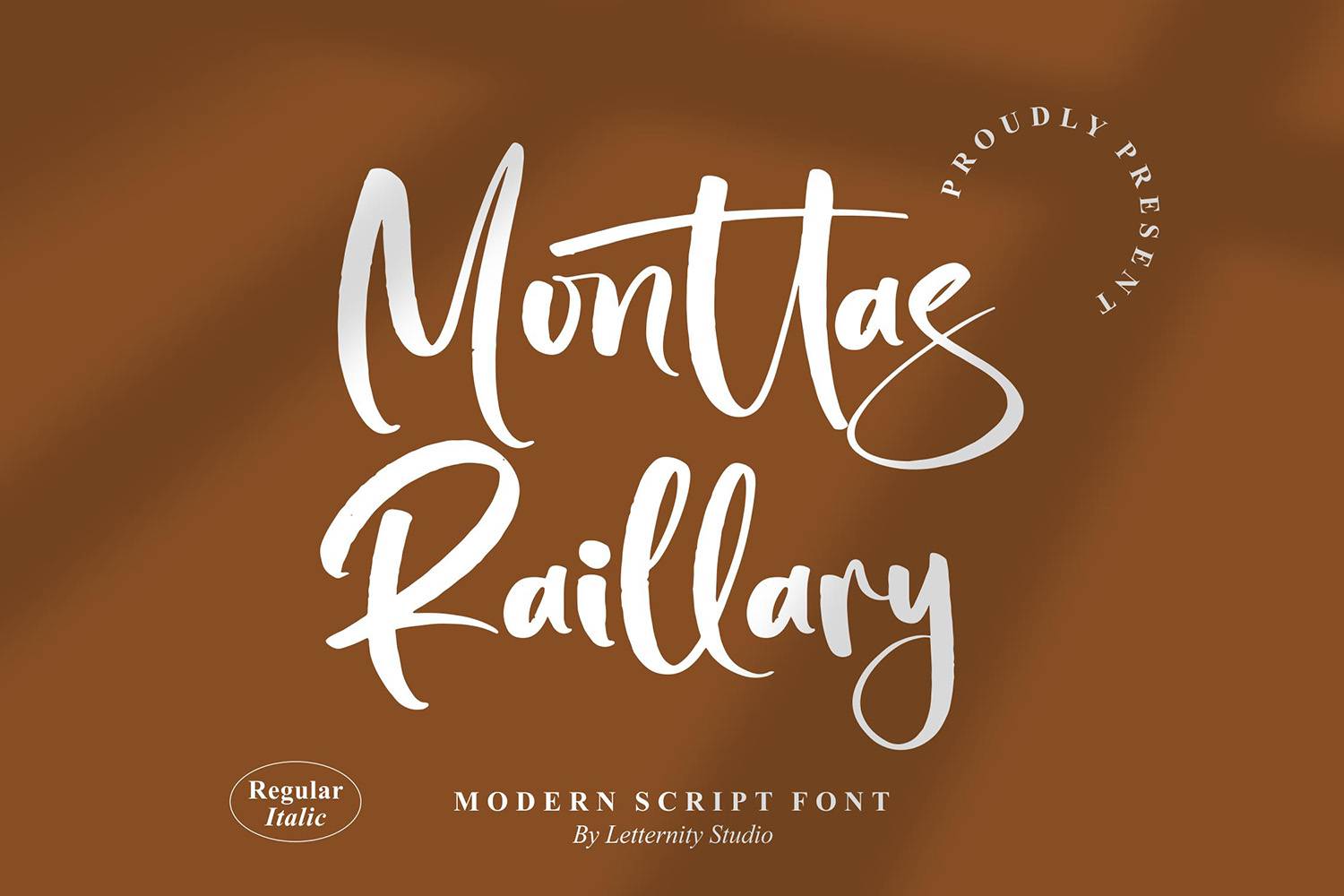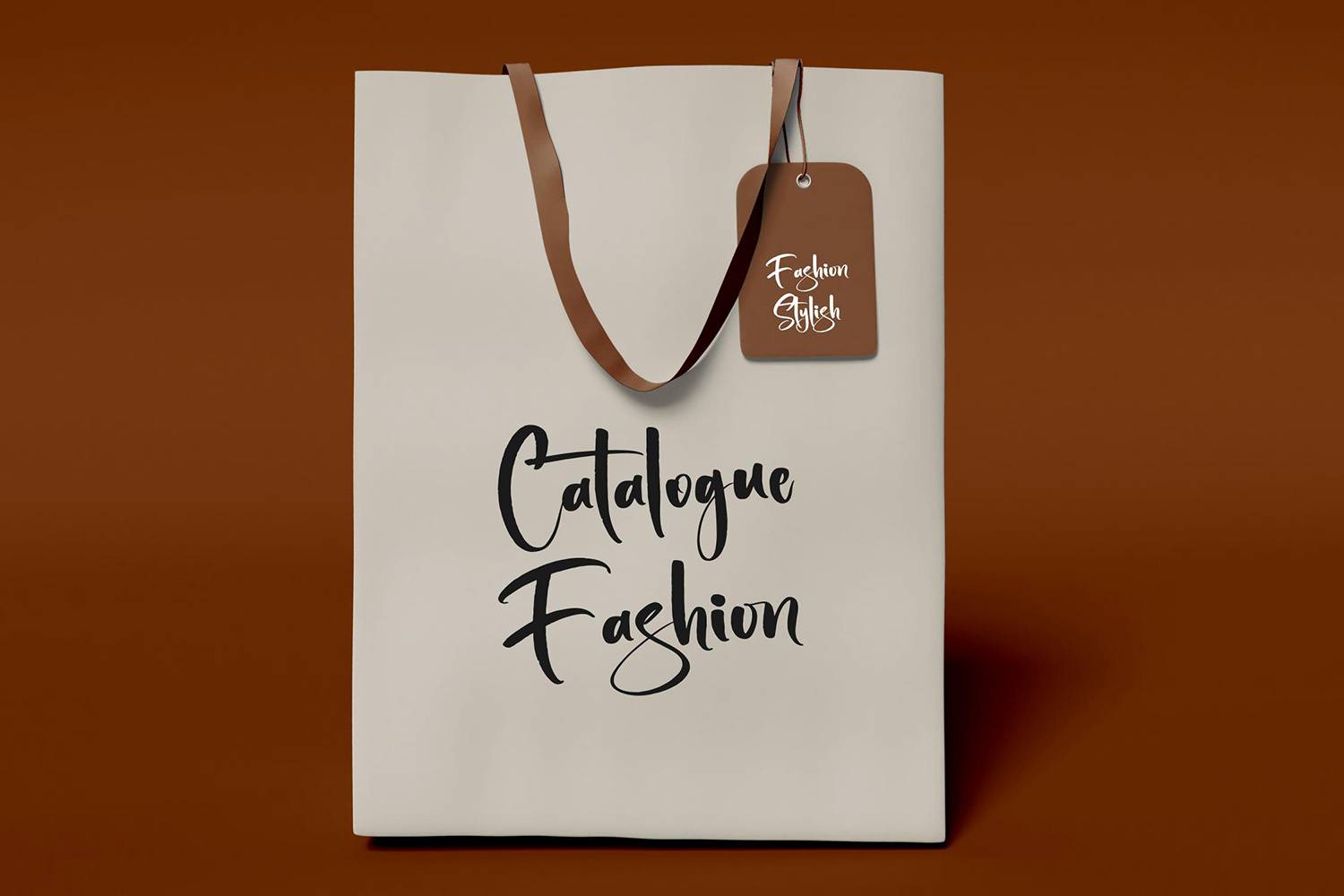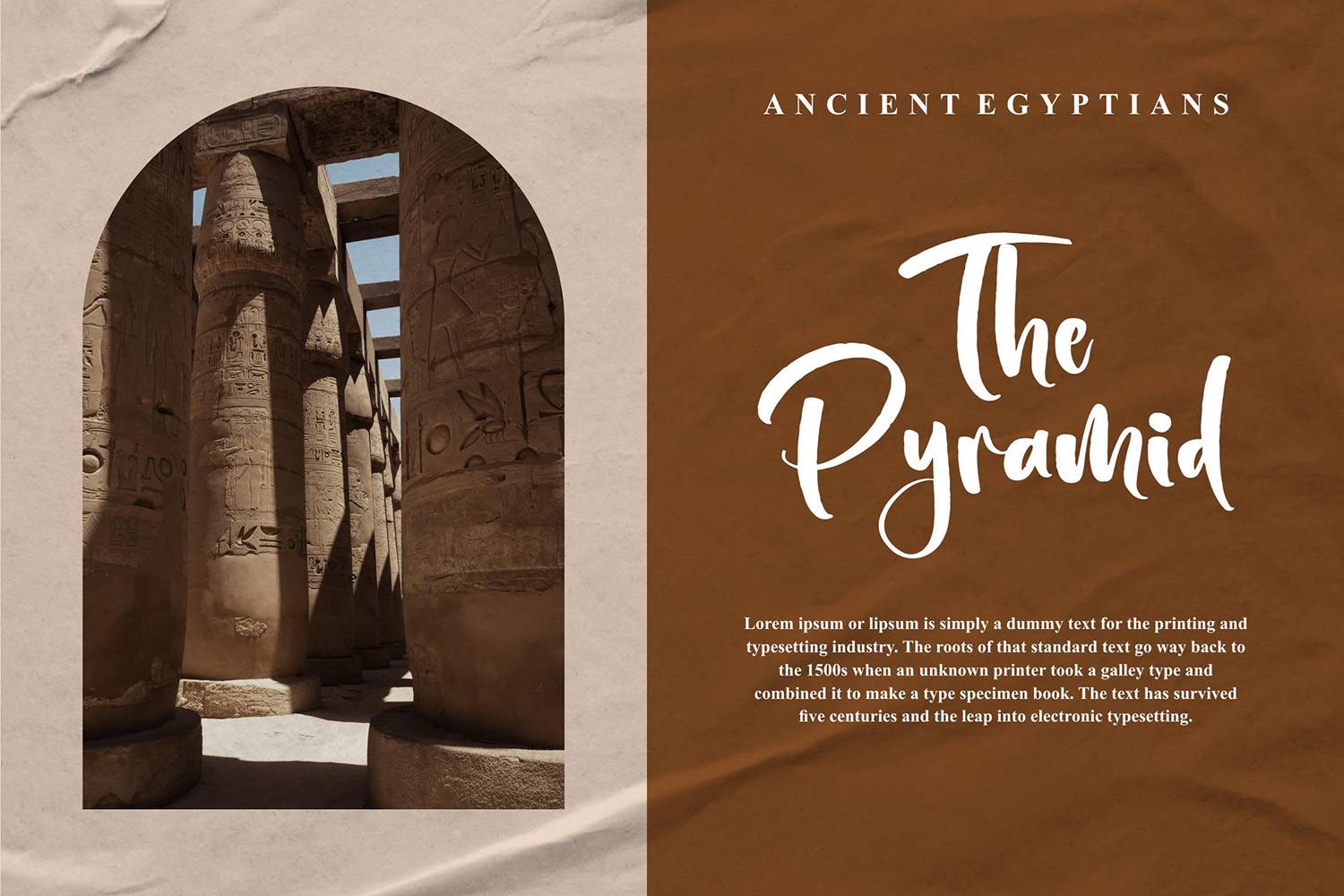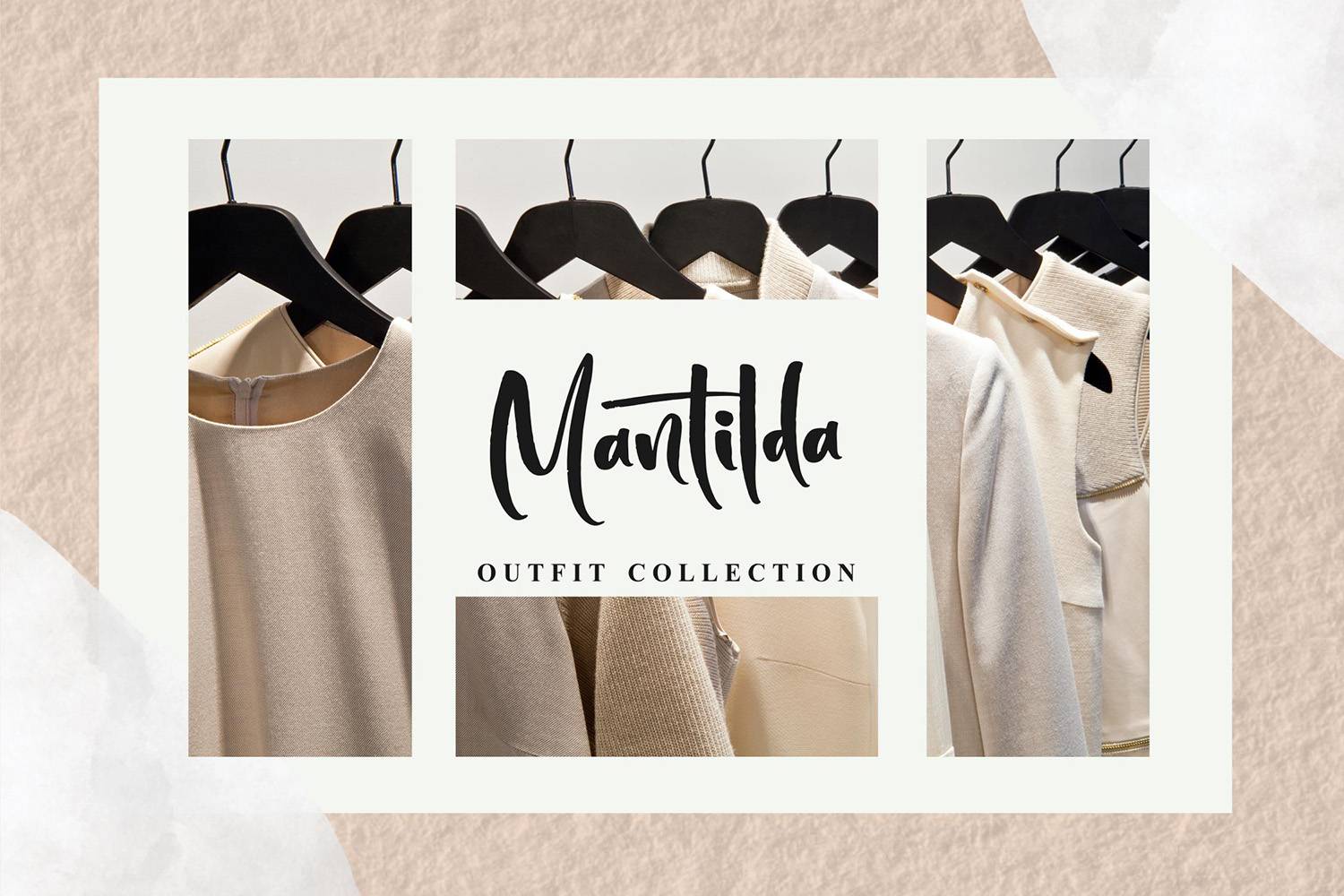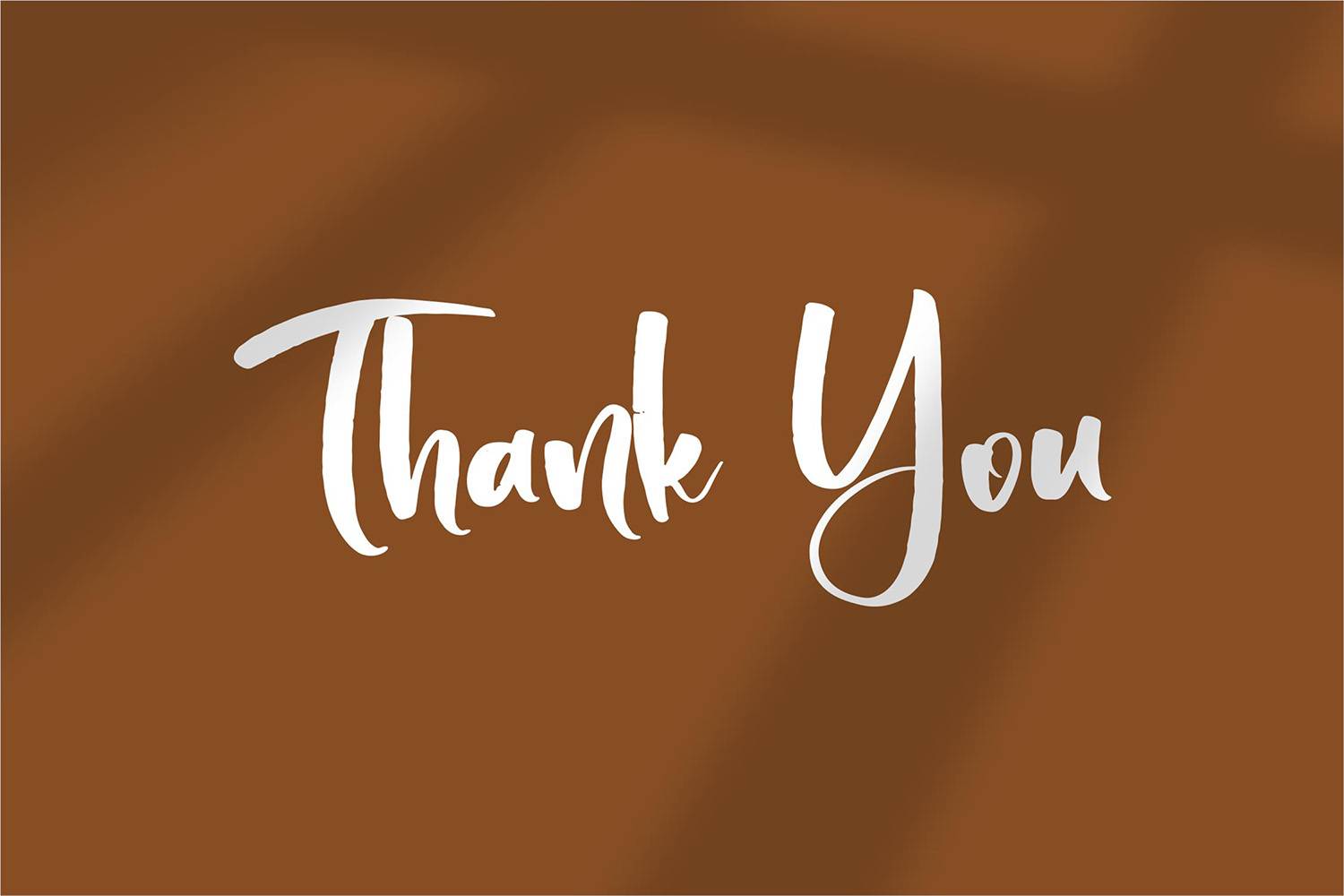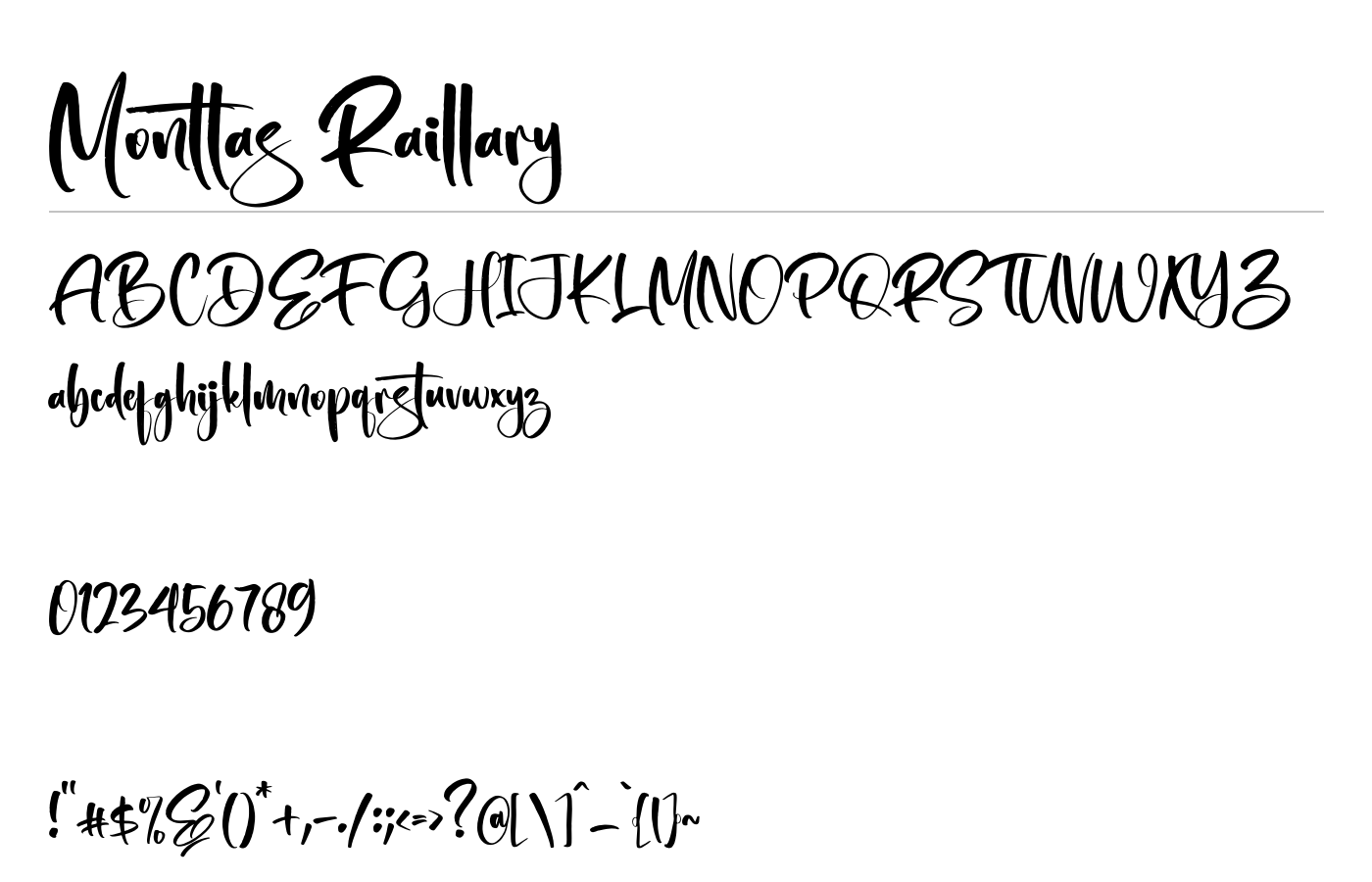
Monttas Raillary is a lively script font that blends elegance with a hand-drawn, brushstroke style. Its fluid, slightly irregular letterforms and varying stroke thicknesses create a charming, personal feel ideal for invitations, branding, and creative projects that want to convey warmth and personality. This font works wonderfully for logos, headlines, and packaging where a handwritten, artistic touch is desired.
Monttas Raillary Font
About Monttas Raillary Font
| Font family | Monttas Raillary Font |